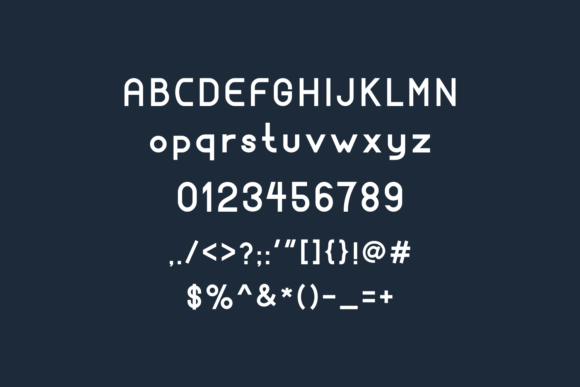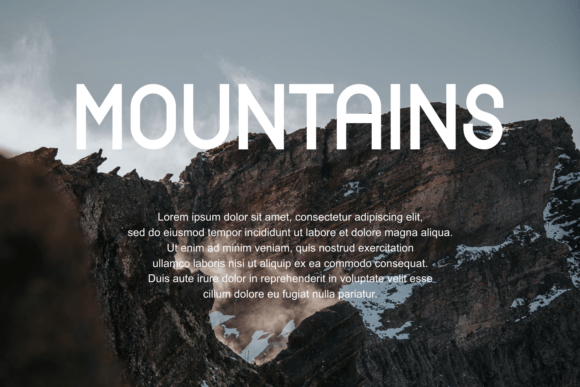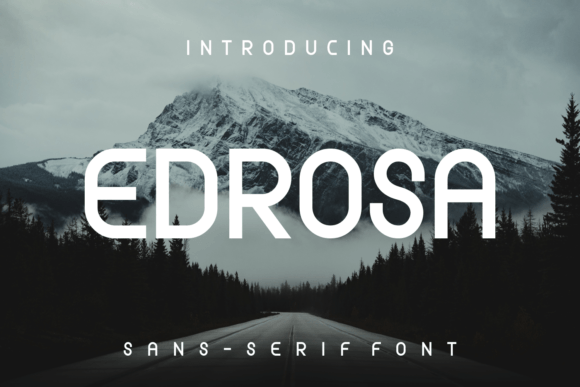
Introducing Edrosa Font: The Modern Sans Serif Game-Changer
In the world of typography, fonts play a crucial role in conveying messages, expressing creativity, and setting the tone for various designs. For designers, crafters, and anyone looking to elevate their visual content, Edrosa Font is a modern and cool sans serif font that is about to become your new go-to asset. With its versatility and sleek design, Edrosa has the potential to transform any creation into a stunning masterpiece.
The Edrosa Advantage: A Modern Sans Serif Font
Edrosa Font is a contemporary sans serif font that boasts a clean, minimalist aesthetic. Its modern design makes it perfect for a wide range of applications, from digital media to print materials. The font’s simplicity and clarity ensure that your message is conveyed effectively, without any distractions. Whether you’re working on a logo, brochure, website, or social media post, Edrosa Font is an excellent choice.
Key Features of Edrosa Font
- Clean and Minimalist Design: Edrosa Font features a sleek, sans serif design that exudes modernity and sophistication.
- Versatility: This font is suitable for various design projects, including logos, headings, body text, and more.
- Excellent Legibility: Edrosa Font is designed to be highly legible, ensuring that your message is conveyed clearly and effectively.
- Easy to Pair: Edrosa Font pairs well with other fonts, making it easy to create stunning font combinations.
Why Choose Edrosa Font?
So, what sets Edrosa Font apart from other fonts? Here are a few compelling reasons to choose Edrosa:
- Unique and Modern Look: Edrosa Font offers a fresh and modern design that will make your creations stand out.
- Time-Saving: With Edrosa Font, you can save time and effort in finding the perfect font for your project.
- High-Quality: Edrosa Font is designed to deliver high-quality results, ensuring that your designs look professional and polished.
Use Cases for Edrosa Font
Edrosa Font is an incredibly versatile font that can be used in various design projects, including:
- Logo Design: Create a stunning logo for your brand with Edrosa Font.
- Print Materials: Use Edrosa Font for brochures, flyers, posters, and other print materials.
- Digital Media: Apply Edrosa Font to your website, social media posts, and email marketing campaigns.
- Packaging Design: Add a touch of modernity to your packaging design with Edrosa Font.
Tips for Using Edrosa Font Effectively
To get the most out of Edrosa Font, here are some valuable tips:
- Experiment with Font Sizes: Play with different font sizes to create visual hierarchy and emphasis.
- Pair with Other Fonts: Combine Edrosa Font with other fonts to create stunning font combinations.
- Adjust Line Spacing: Adjust line spacing to improve legibility and readability.
In conclusion, Edrosa Font is a modern and cool sans serif font that is sure to elevate your designs to the next level. Its versatility, clean design, and excellent legibility make it an ideal choice for various design projects. Whether you’re a designer, crafter, or simply looking to enhance your visual content, Edrosa Font is an incredible asset to have in your font library.